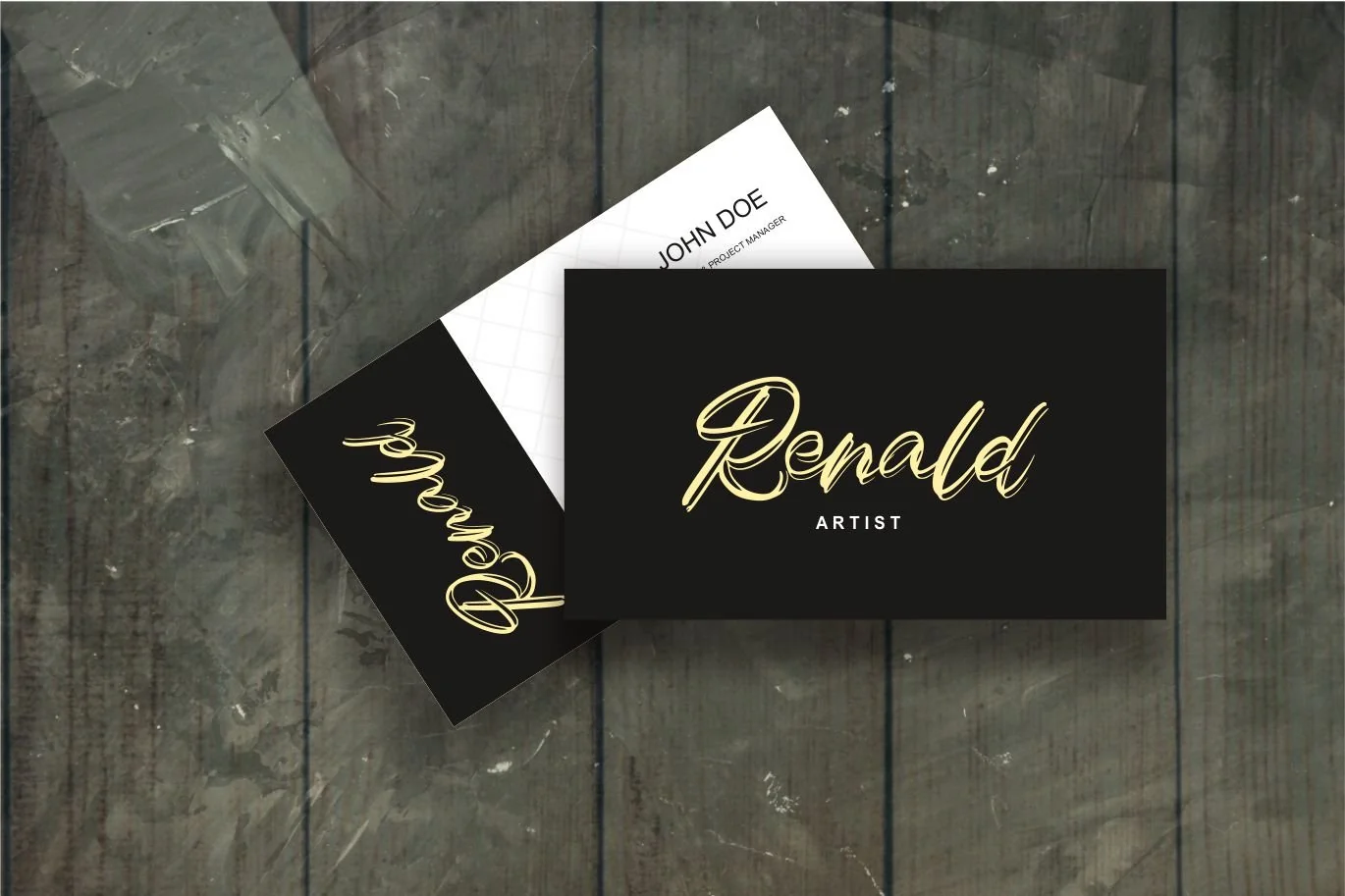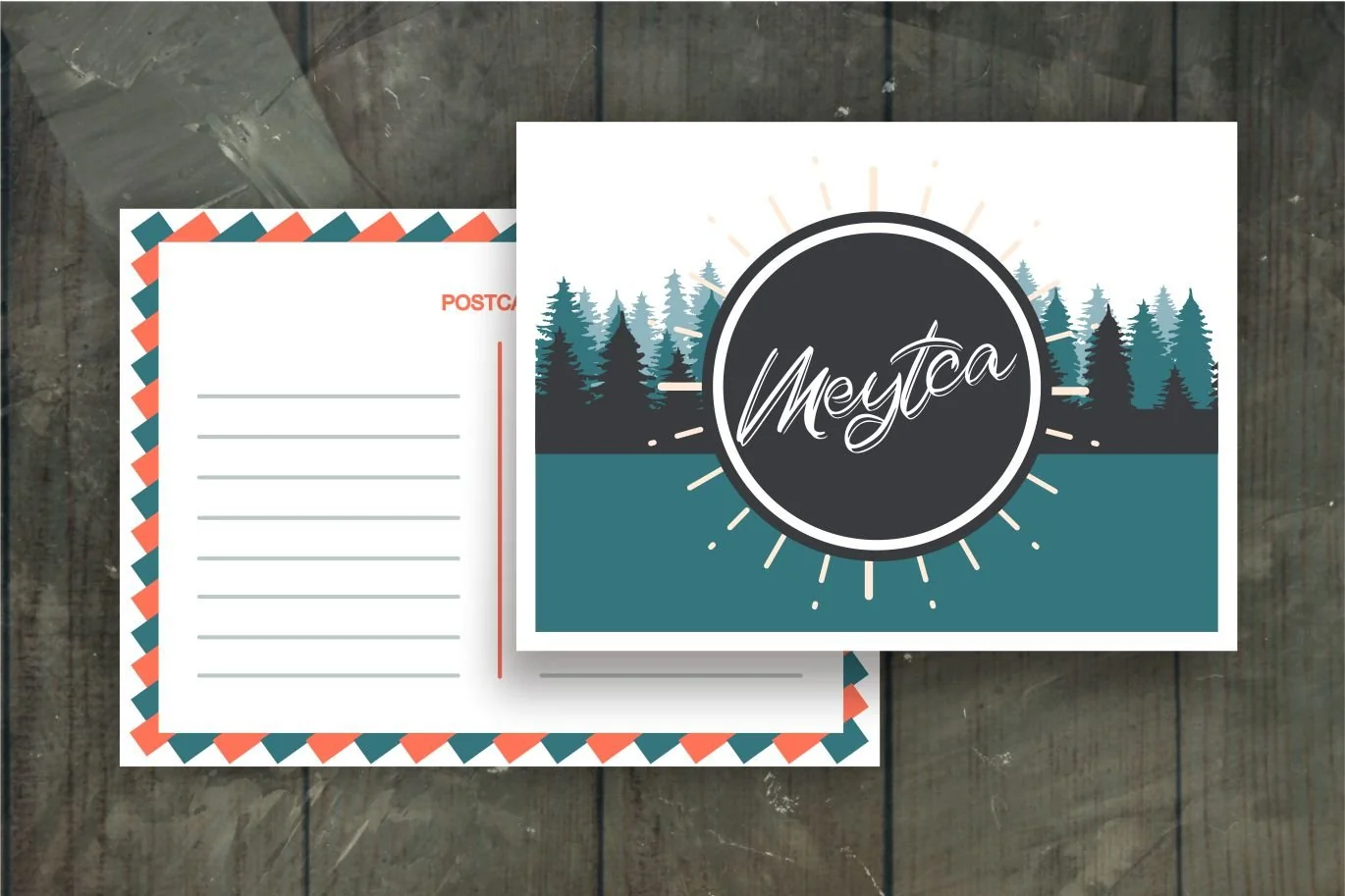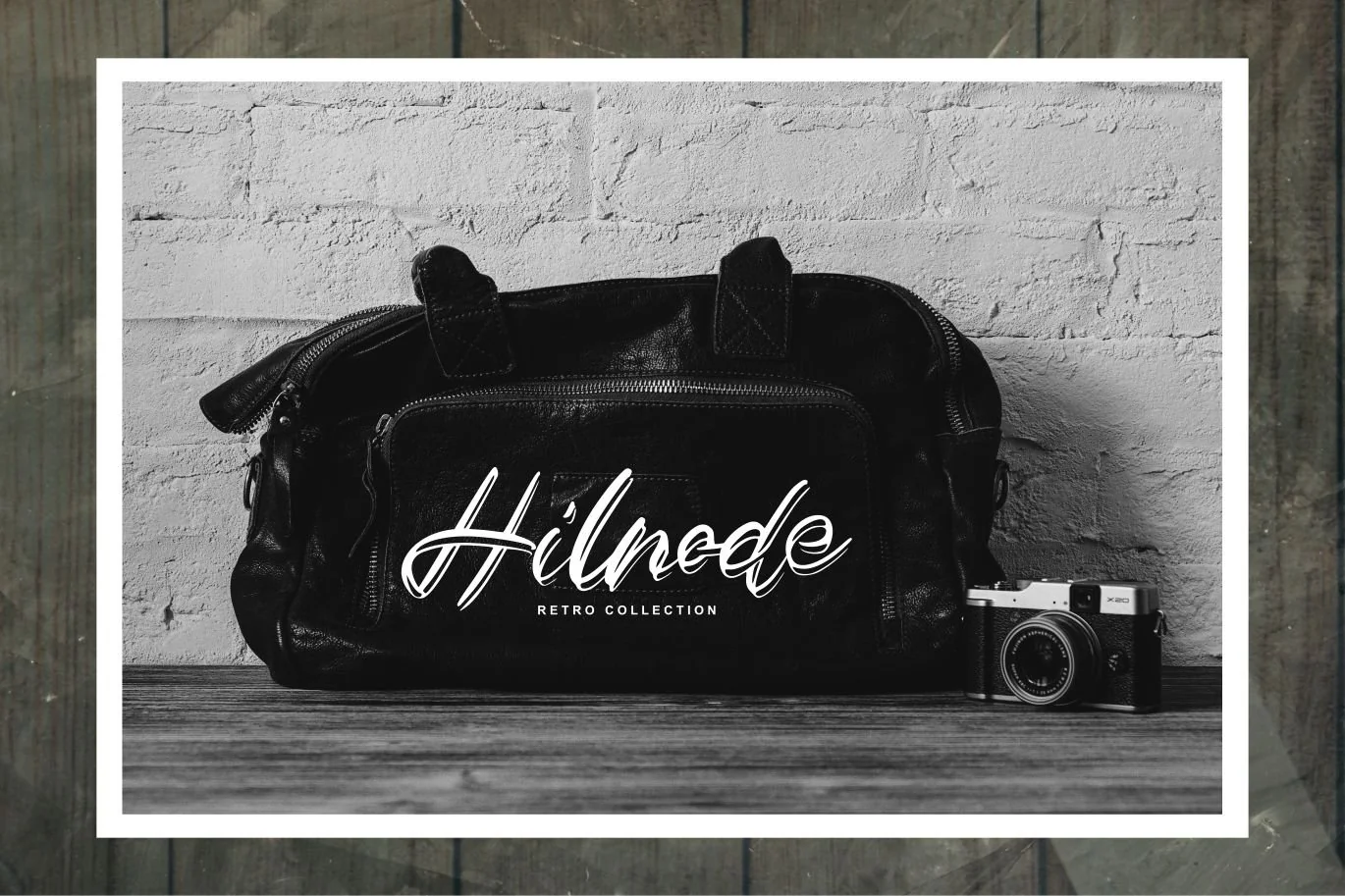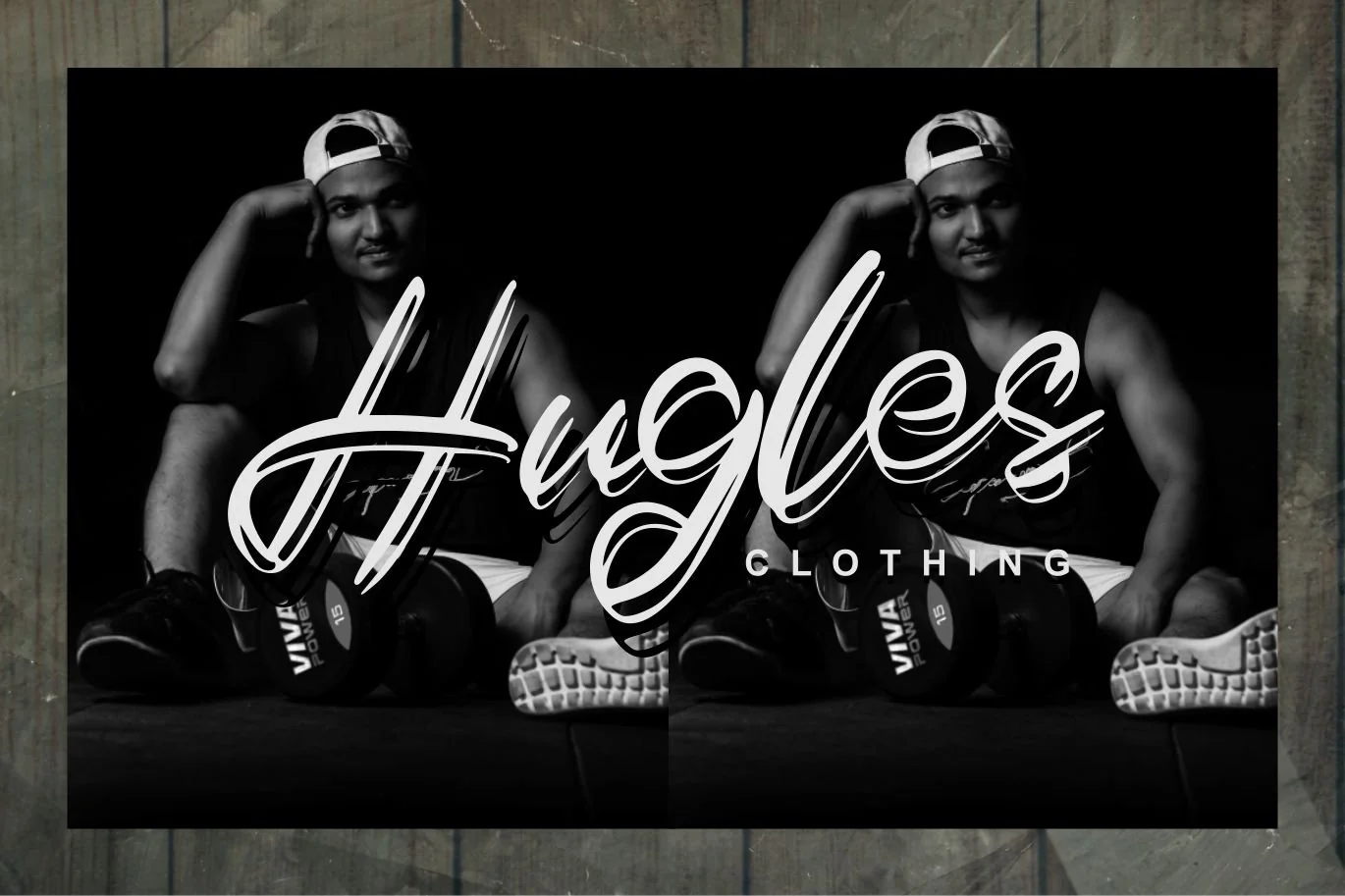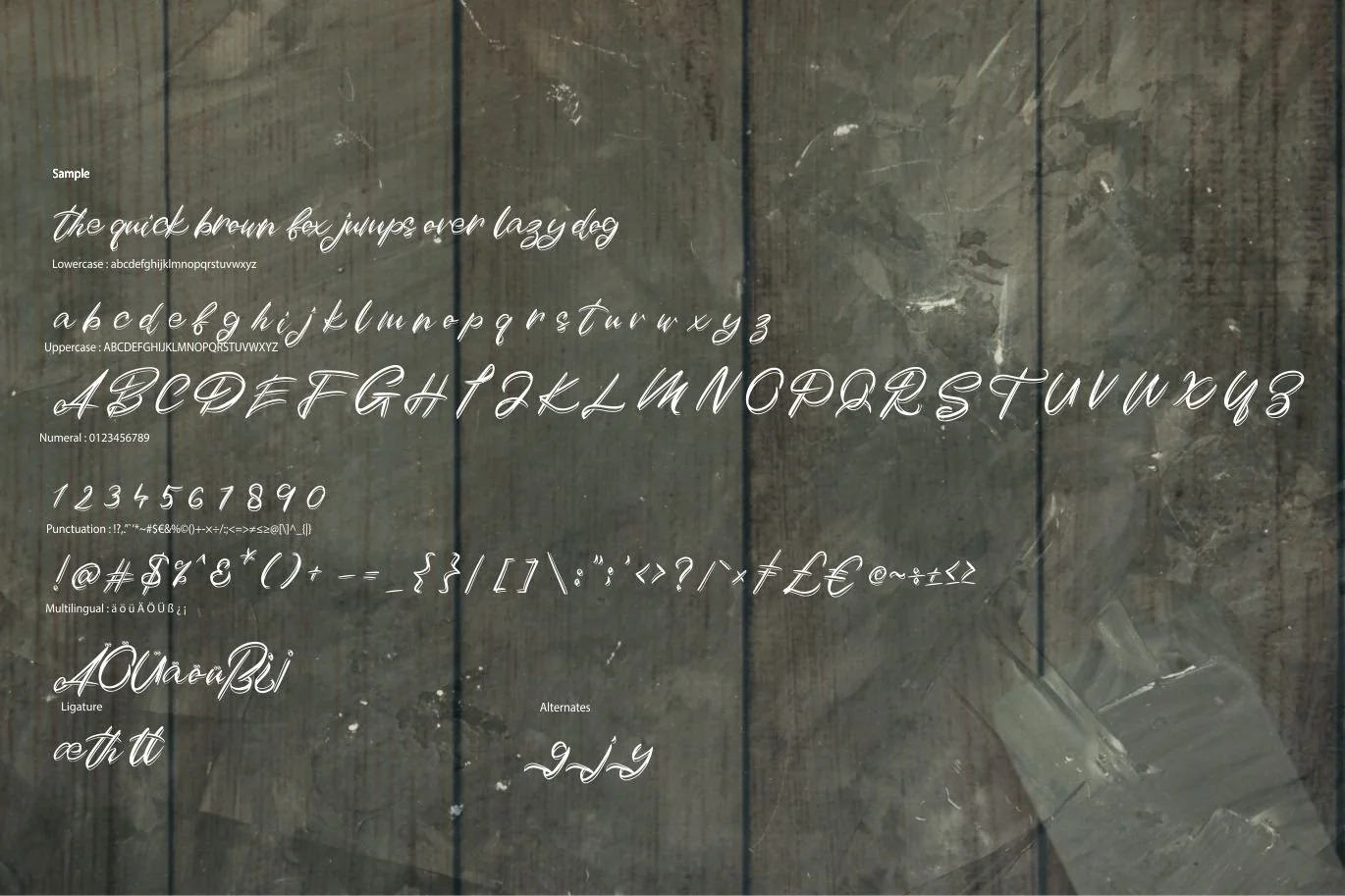
Duythy | Modern Art Font
Duythy | Modern Art Font with a calligraphy style, So beautiful on invitation like greeting cards, branding materials, business cards, quotes, posters, and more!